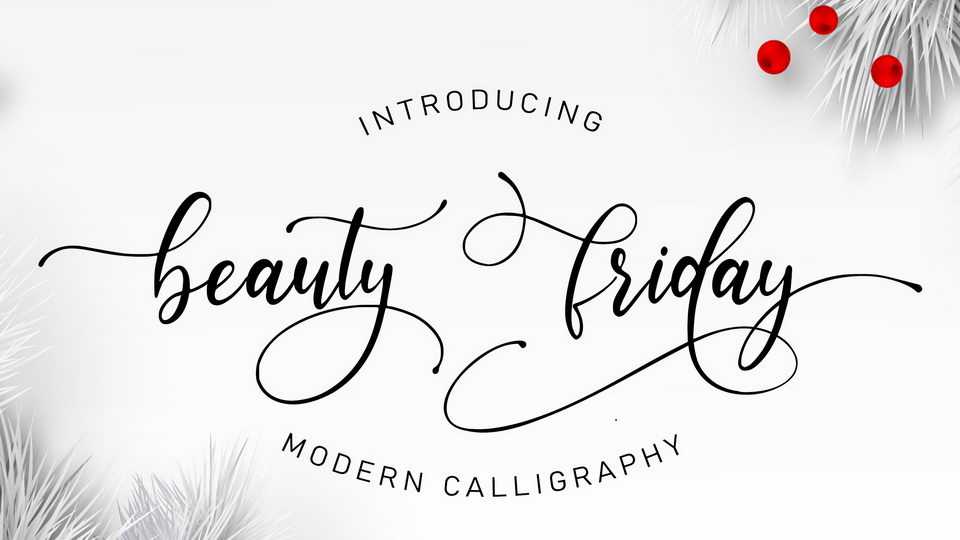
Download Beauty Friday font, a charming modern calligraphy script. Beauty Friday is perfect fo you up coming projects. such as modern invitation design, branding stationery design, wedding, birthday, etc and any projects.
Designer: JunCreative